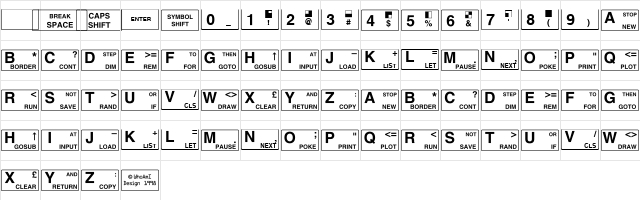
ZXSpectrum Regular
Design Context for ZXSpectrum Typeface
ZXSpectrum is a composed and adaptable typeface that performs quietly and consistently across a wide range of design contexts.